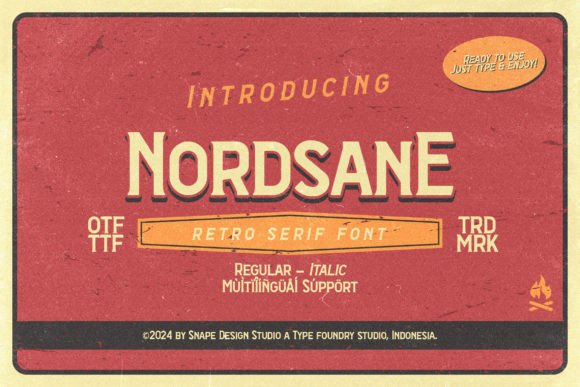
Nordsane Font: A Timeless Retro Serif Font for Modern Designs
In the world of typography, few fonts manage to capture the essence of a bygone era while still feeling fresh and relevant today. Nordsane, a retro serif font, is one such typeface that effortlessly blends nostalgia with modern style. Inspired by vintage print materials from the mid-century, Nordsane brings a classic yet captivating aesthetic to any design project.
The Inspiration Behind Nordsane
Nordsane draws its inspiration from the rich typographic heritage of the mid-20th century, a period renowned for its innovative and expressive use of typefaces. During this era, typography played a crucial role in advertising, editorial design, and branding, with designers often turning to serif fonts to convey tradition, reliability, and sophistication. Nordsane pays homage to this era by emulating the distinctive serifs, balanced proportions, and clean lines that characterized mid-century typography.
An example of Nordsane in use, showcasing its classic yet captivating aesthetic.
Design Characteristics of Nordsane
Nordsane is distinguished by its unique blend of traditional and modern design elements. The font features:
- Distinctive Serifs: Nordsane’s serifs are carefully crafted to provide a sense of history and authenticity, reminiscent of vintage print materials.
- Clean Lines: The font’s clean lines and uncomplicated structure ensure a high level of legibility, making it suitable for a wide range of applications.
- Balanced Proportions: Nordsane’s characters are designed with balanced proportions, ensuring harmony and consistency across the entire font.
- Timeless Appeal: The font’s design is intentionally timeless, avoiding trends and focusing on a classic aesthetic that won’t date.
Versatility and Applications of Nordsane
Nordsane’s versatility is one of its most compelling attributes. Its classic design makes it an excellent choice for various projects, including:
- Branding: Nordsane can add a touch of sophistication and heritage to brand identities, making it perfect for companies looking to convey tradition and reliability.
- Packaging: The font’s distinctive serifs and clean lines make it an excellent choice for packaging design, where standing out on crowded shelves is crucial.
- Editorial Layouts: Nordsane’s legibility and classic aesthetic make it ideal for editorial layouts, including magazines, newspapers, and books.
Why Choose Nordsane?
In a world where trends come and go, Nordsane offers a refreshing alternative. Here are a few reasons why designers and brands are choosing Nordsane:
- Unique Aesthetic: Nordsane’s distinctive serifs and clean lines offer a unique aesthetic that sets it apart from more common typefaces.
- Legibility: The font’s design prioritizes legibility, ensuring that messages are communicated clearly and effectively.
- Timeless Design: Nordsane’s timeless design ensures that it won’t date, making it a valuable investment for brands and designers looking for a long-term typographic solution.
Nordsane is more than just a font; it’s a design statement. Its blend of mid-century inspiration with modern versatility makes it an invaluable tool for designers and brands looking to add a touch of nostalgia to their projects. Whether you’re working on branding, packaging, or editorial layouts, Nordsane offers a classic yet captivating aesthetic that’s sure to leave a lasting impression.
What inspired the creation of Nordsane?
Nordsane was inspired by vintage print materials from the mid-20th century, aiming to capture the essence of mid-century typography.
Is Nordsane suitable for digital use?
Yes, Nordsane is designed to be versatile and legible, making it suitable for both print and digital applications.